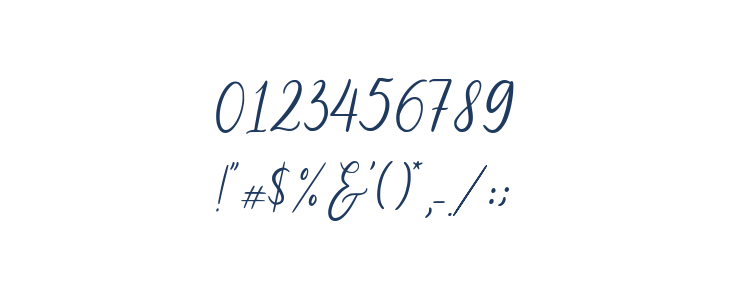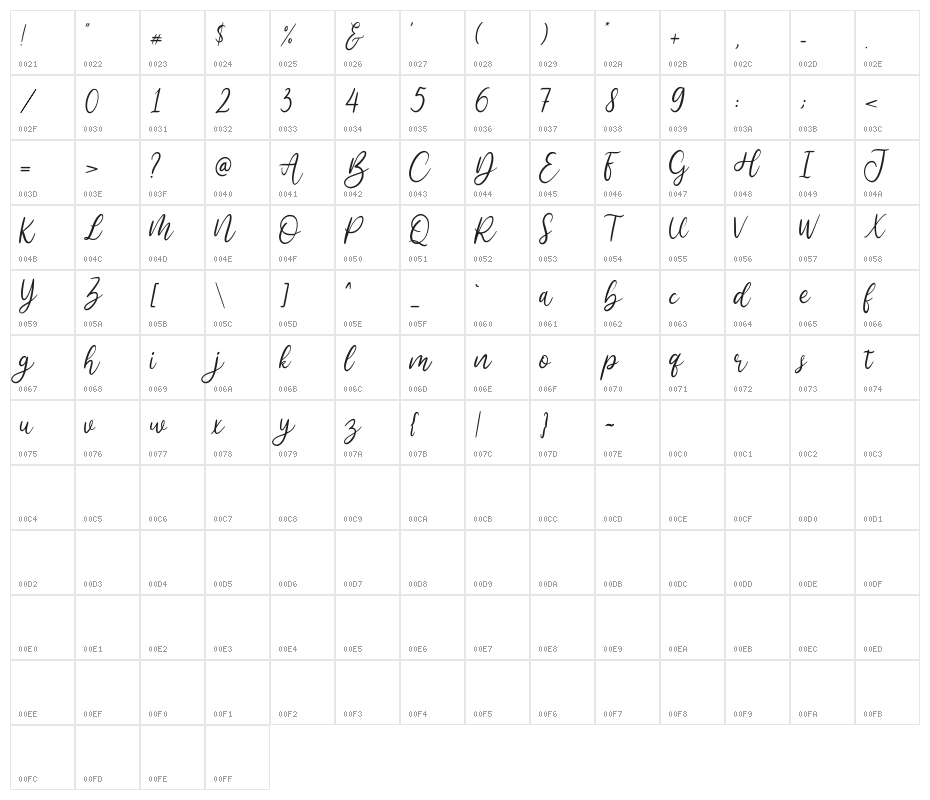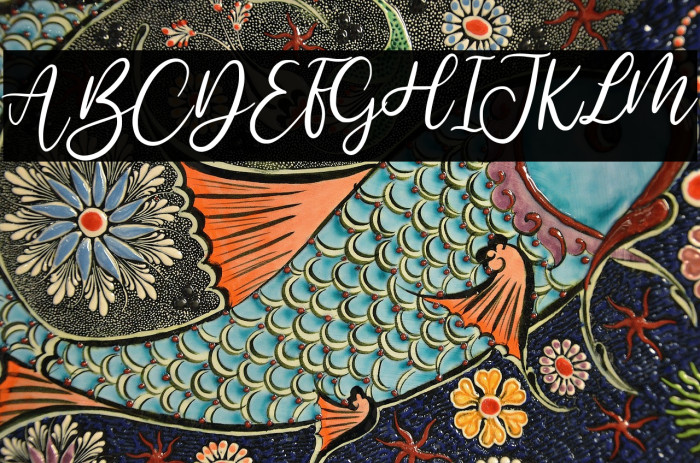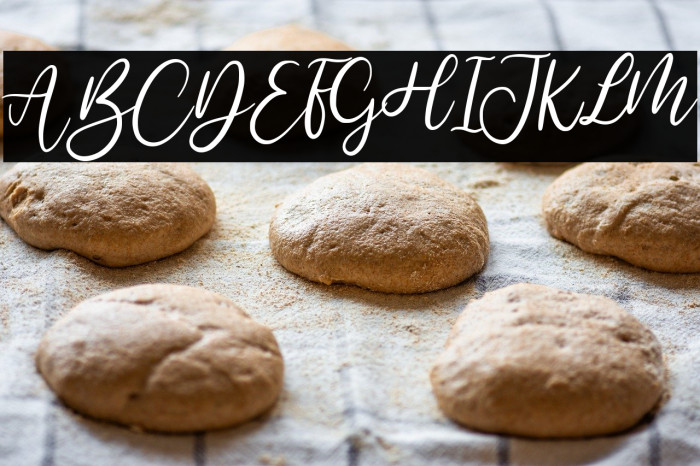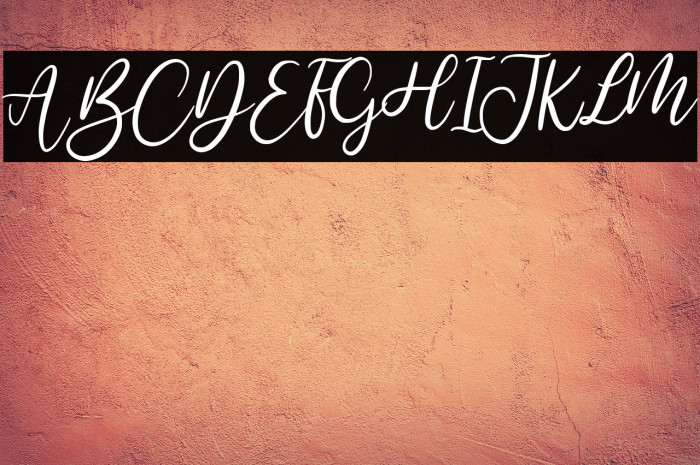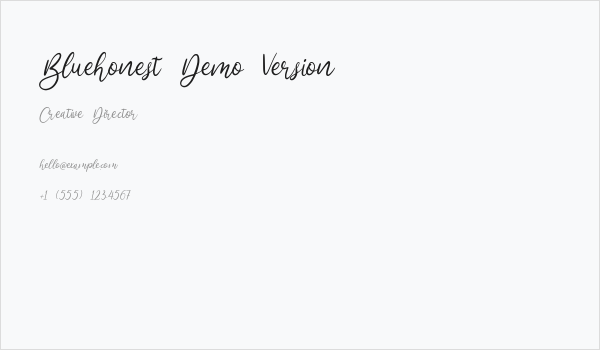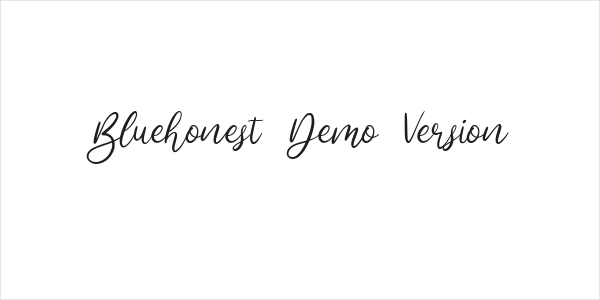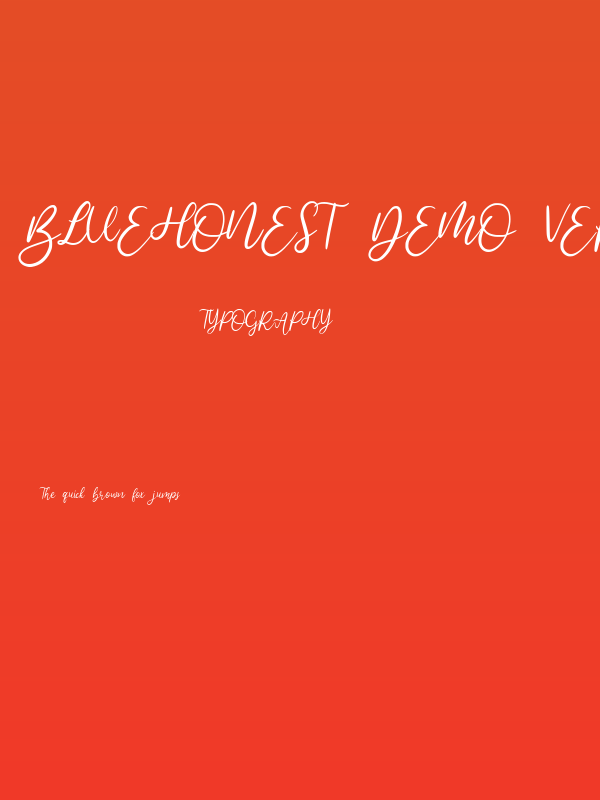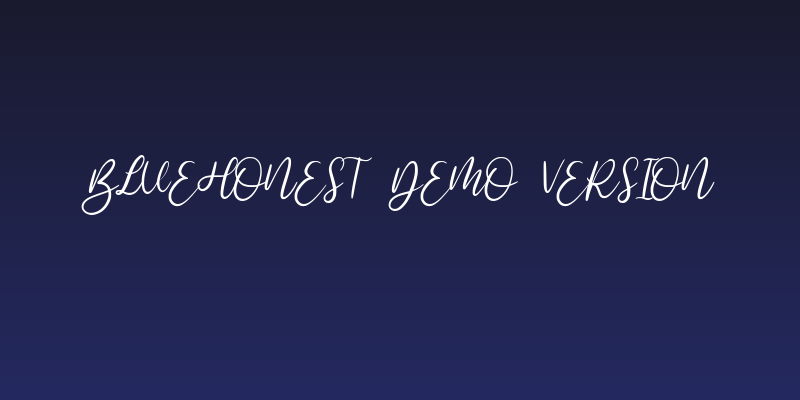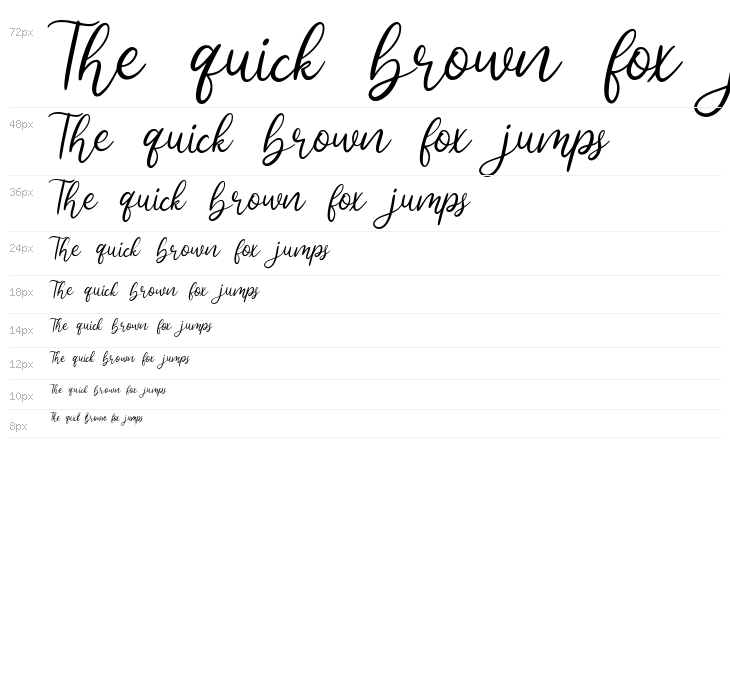
Bluehonest Demo Version Font
Bluehonest Demo Version Description
This font features a flowing, cursive style that exudes elegance and sophistication. The characters are interconnected, creating a seamless and fluid appearance. The uppercase letters are slightly more ornate, with graceful loops and swirls, while the lowercase letters maintain a consistent, smooth flow. The numerals are designed to match the script style, with a slight slant and rounded edges. Special characters are integrated seamlessly, maintaining the overall aesthetic. This font is ideal for projects that require a touch of elegance and personal flair, such as invitations, greeting cards, and branding materials. Its handwritten quality adds a personal touch, making it suitable for creative and artistic endeavors.
| Overall Style | Elegant, Handwritten |
| Use Case | Headlines, Invitations, Artistic projects |
| Proposed Projects | Ideal for wedding invitations, greeting cards, personal branding, and artistic projects. |